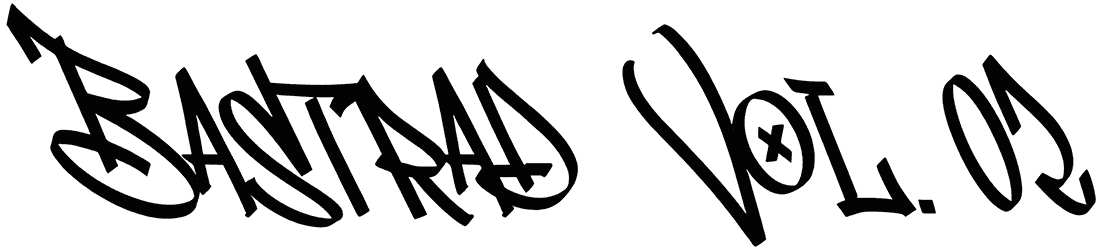
Bastrad Vol.02 Font
Spice up your coming design with a captivating street art letterform and overjoy the feedback. This graffiti font, called Bastrad Vol.02, has a whimsical vibe that can surprise your viewers. It doesn’t have lowercase letters, but covering two sets of capitals gives you a good chance to make creative mixtures.